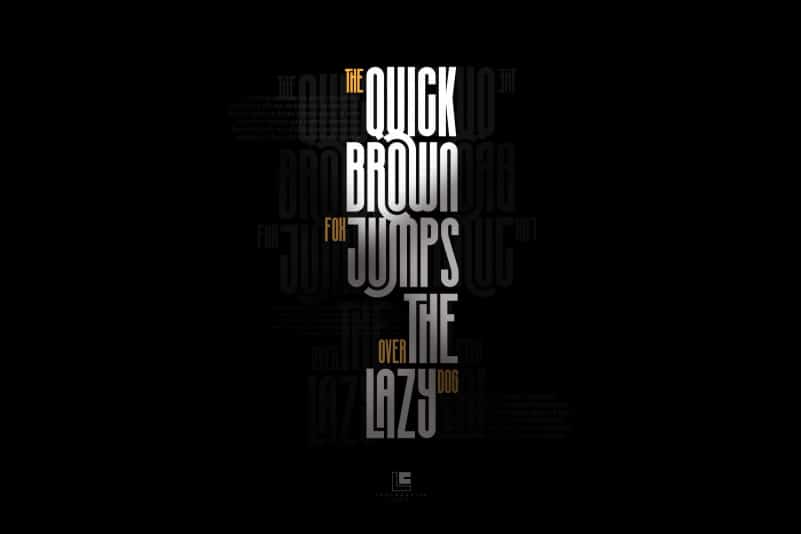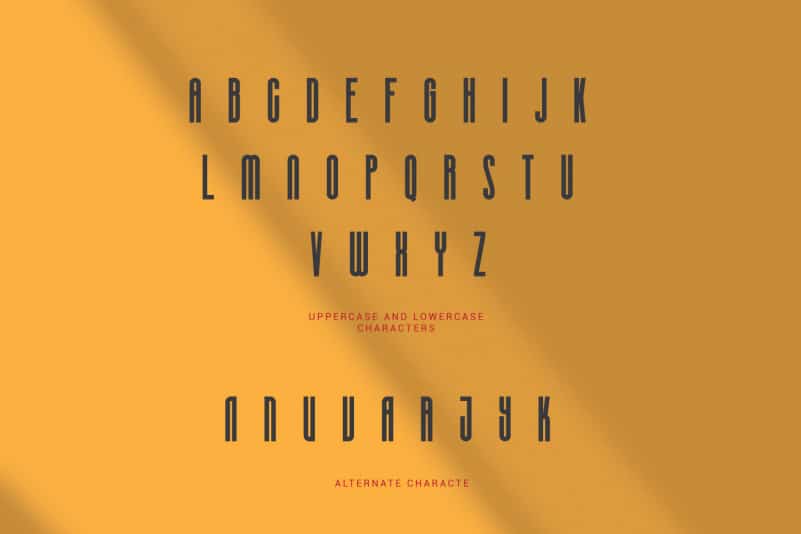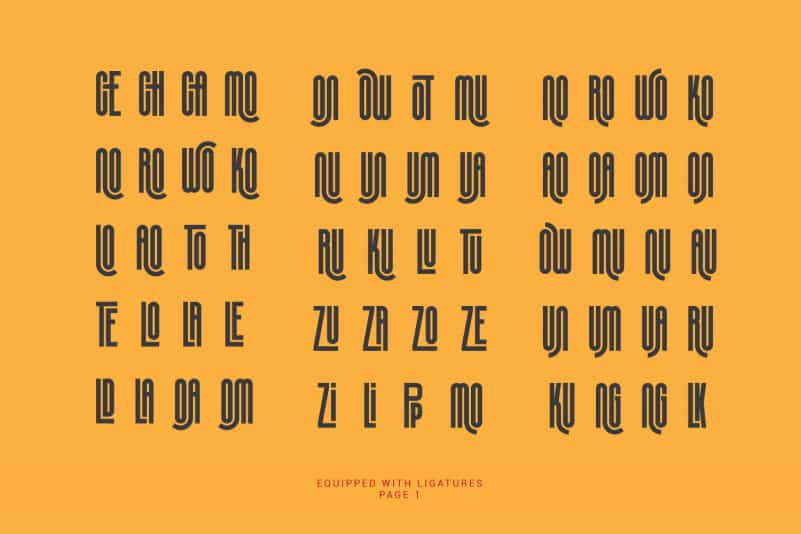
Silver Crown – Condensend Font
Silver Crown – Ultra Condensend font and Minimalis Character, It’s Perfect for logo, name card, magazin layout,headers, or oven large scale artwork